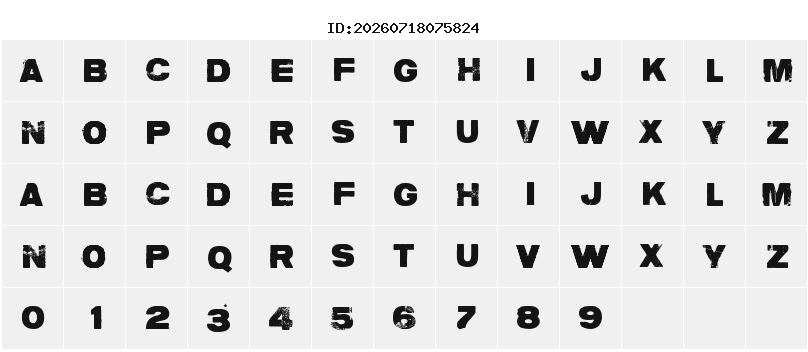
Charlie don't surf! Preview
• Font Name: Charlie don't surf!
• Full Font Name: Charlie don't surf!
• Version: Version 1.00 June 1, 2014, initial release
• Designer: junkohanhero
About Charlie don't surf!.ttf
Charlie don't surf!.ttf is a modern, elegant sans-serif font designed for ultimate readability and visual harmony. Perfect for branding, headlines, web design, and print materials.